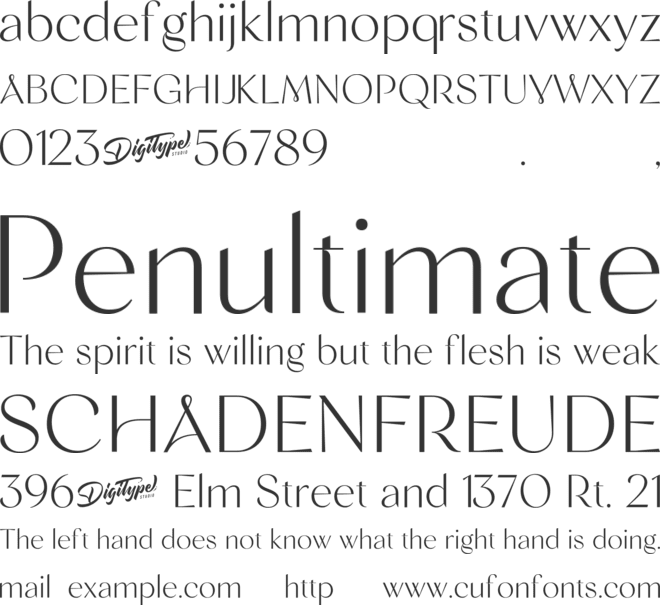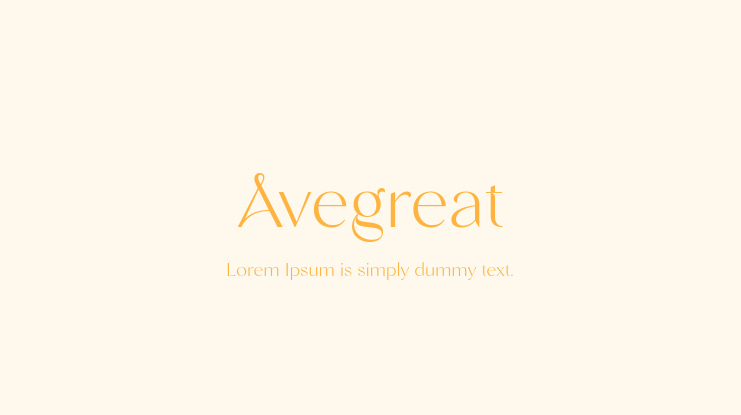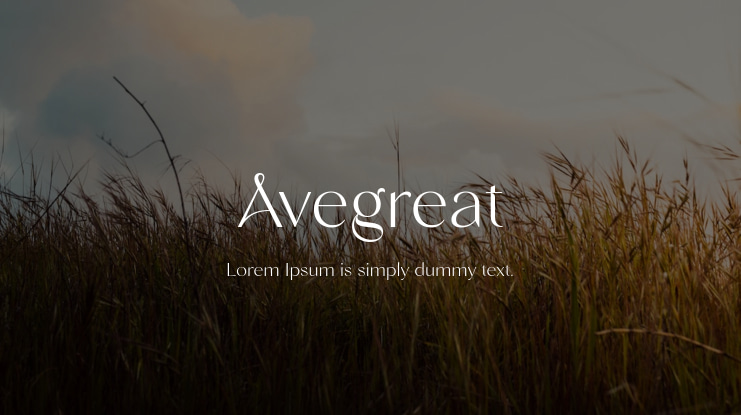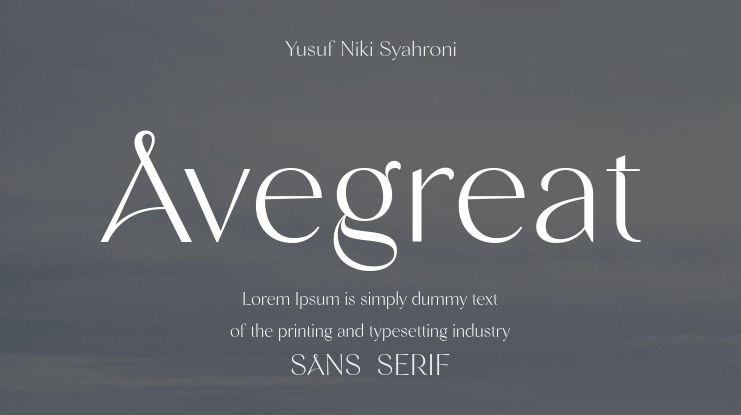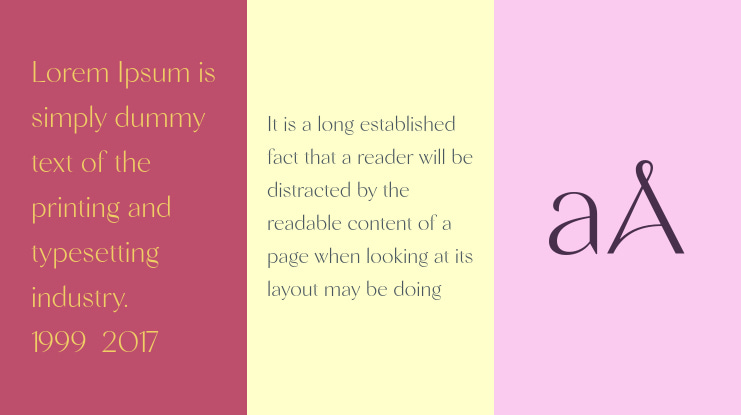
Avegreat Font
Avegreat is a clean and modern serif typeface with a visually appealing character, complemented by a variety of discretionary ligatures, making it a chic serif font.